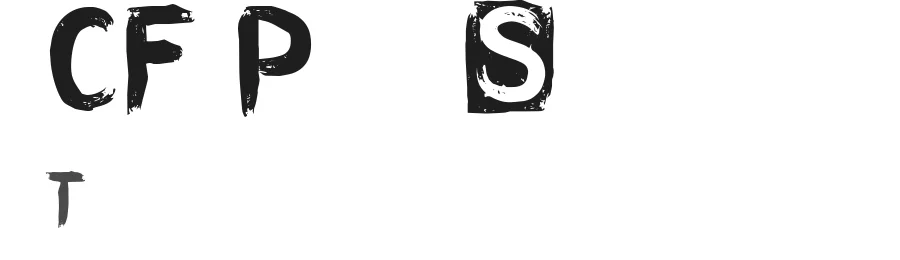
About Decaying Felt Pen Font
Decaying Felt Pen is a script & handwritten font designed by imagex. It includes 229 glyphs, a regular weight, TTF (TrueType) format, and 209 languages. Decaying Felt Pen is free to download; check the license details on this page before commercial use. Script & handwritten fonts like Decaying Felt Pen work best for wedding invitations, greeting cards, signatures, and elegant branding.
Decaying Felt Pen Font is a script font that shines as a display or heading face. Pair it with a clean sans-serif or serif font for body text β the contrast creates a clear hierarchy while the two styles stay balanced and easy to read.